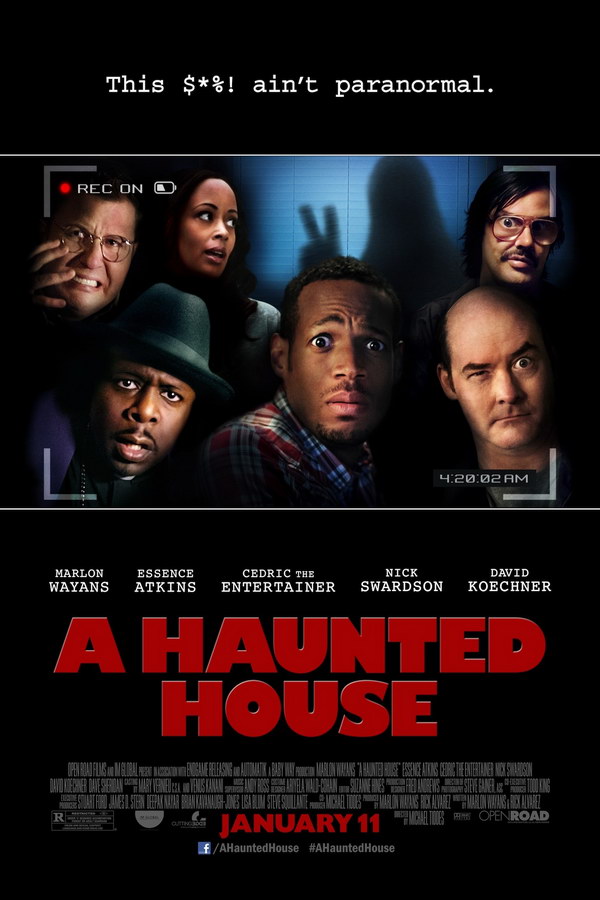
A Haunted House Font
Fonts in UseA Haunted House is a 2013 horror comedy film that parodies the found footage genre. The movie follows a couple who move into a new home only to find that it is haunted by a demon.
The movie title on the poster bears a resemblance to Gill Sans Ultra Bold, a commercial font created by Eric Gill in 1931. If you're interested, you can find more information about the font here.